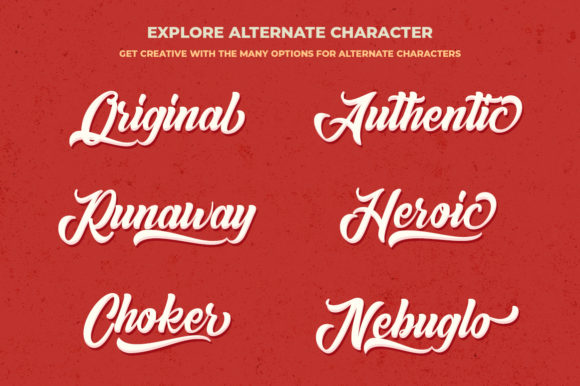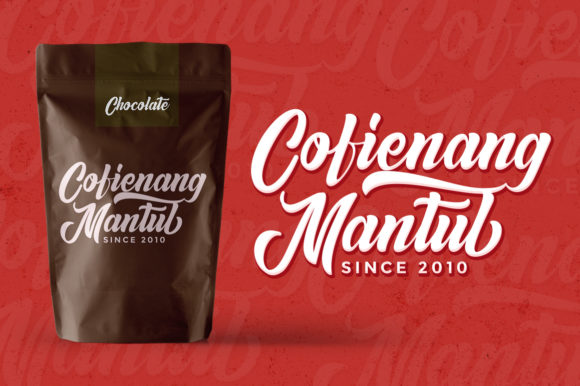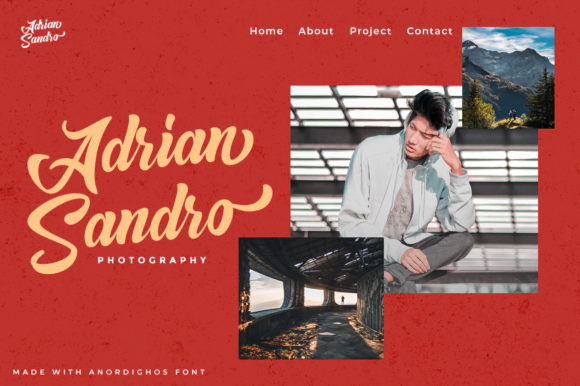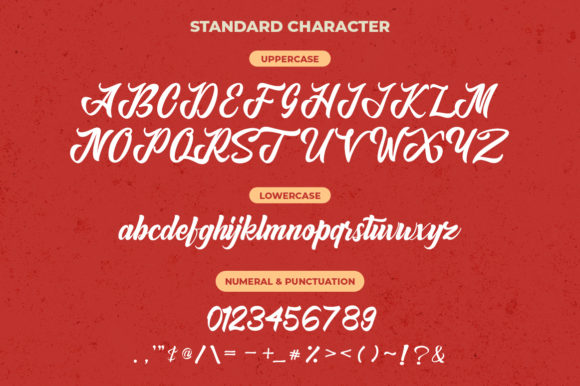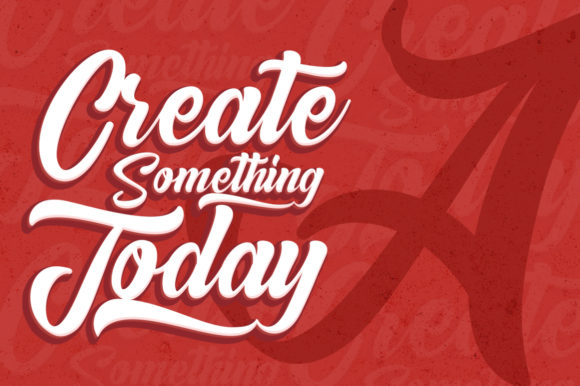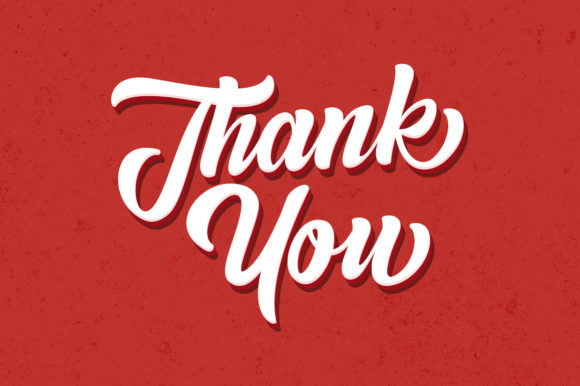
Discover the Perfect Blend of Personality and Readability
There’s something special about stumbling upon a design tool that speaks to you, like finding a hidden gem in a bustling creative space. For designers, the thrill of discovering a new font that perfectly captures the essence of a project is exhilarating. It’s that moment when the words flow effortlessly, and the design comes alive. That’s exactly what Anordighos Font is all about – infusing your designs with a dash of personality and a pinch of readability.
As a casual and playful display font, Anordighos Font is designed to elevate your design projects and make them stand out from the crowd. Its unique character and versatility make it an invaluable addition to any designer’s toolkit. Whether you’re working on a logo, a marketing campaign, or a website, Anordighos Font is sure to bring a touch of creativity and flair to your work.
Anordighos Font Key Features
- Font Family: Anordighos Font comes in two font families: Anordighos Regular and Anordighos Bold.
- Unique Characteristics: Anordighos Font features a unique blend of modern and vintage elements, with intricate details and subtle texture, making it perfect for creating visually striking designs.
Anordighos Font Review
Anordighos Font is a unique and eye-catching typeface that has the potential to elevate your designs to the next level. Here’s what I think about it:
- ✨ Versatility: Anordighos Font comes in a wide range of styles and weights, making it suitable for various design applications, from headings to body text.
- ✨ Expressiveness: This font has a distinct personality that can add a touch of elegance and sophistication to your designs.
- ✨ Customizability: The font’s unique characteristics can be easily manipulated to create a bespoke look that suits your brand’s identity.
- ⚠️ Readability: While Anordighos Font is visually stunning, it can be challenging to read, especially at smaller font sizes or in low-contrast environments.
- ⚠️ Limited language support: The font may not be optimized for non-Latin scripts, which could be a limitation for international designs.
Anordighos Font is a great choice for designers who want to create bold, eye-catching designs. While it may have some limitations, its versatility and expressiveness make it a valuable addition to any design toolkit. With careful use and attention to readability, Anordighos Font can help take your designs to the next level.
Anordighos Font is ideal for:
- Designing luxury or high-end products.
- Creating modern and sophisticated branding materials.
- Adding a touch of elegance to digital and print materials.
Alternatives to Anordighos Font for Designers
Montserrat is a modern sans-serif font that is highly legible and versatile. It is perfect for use in digital products, advertising, and editorial design. Montserrat is more geometric and angular compared to Anordighos Font, which has a more rounded and elegant feel.
Open Sans is a clean and minimalist sans-serif font that is highly readable on screens. It is ideal for use in digital products, websites, and apps. Open Sans is more straightforward and lacks the subtle flair of Anordighos Font, but it excels in its simplicity and readability.
Lato is a modern sans-serif font that is highly versatile and adaptable. It is perfect for use in branding, advertising, and editorial design. Lato has a similar elegant feel to Anordighos Font, but it is more condensed and has a slightly more formal tone.